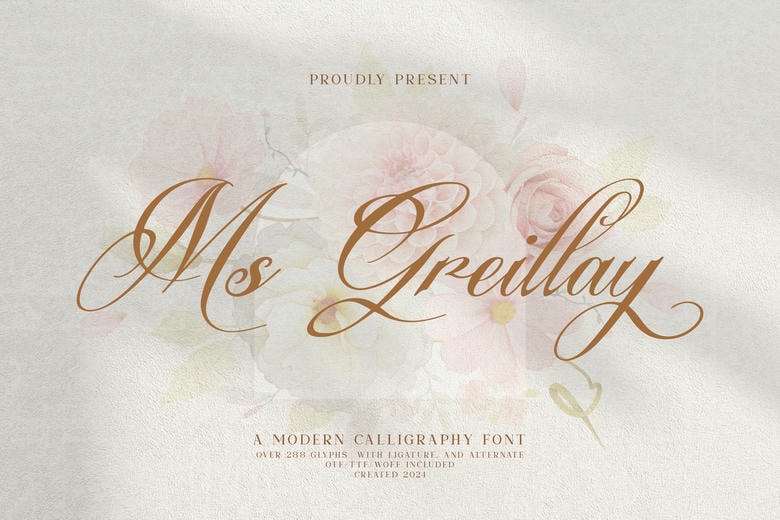
Ms Greillay Font
Ms Greillay is a boldly modern calligraphy typeface. It is recommended for use in environments where you want the letters to be smooth and sophisticated. Practical for writing on invitations, greeting cards or personal letters, it gives a beautiful feel to any chosen layout.
Ms Greillay Calligraphy Font